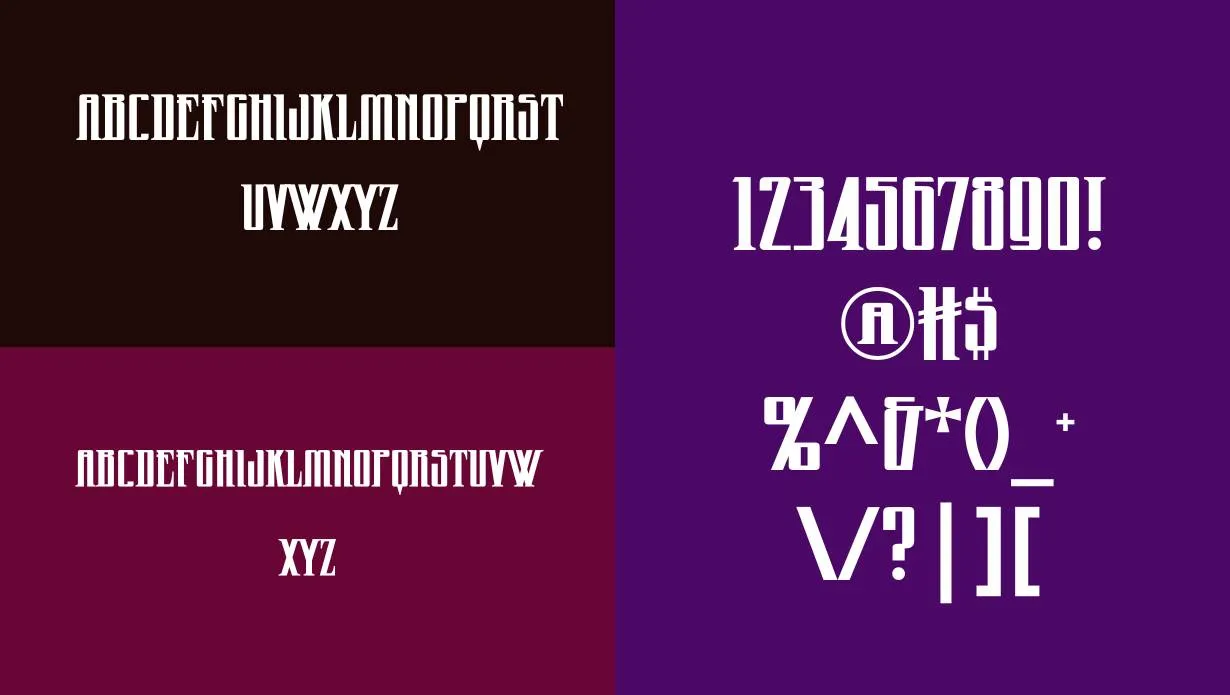
Wicked Queen Font exudes a dark and Gothic vibe, perfect for projects needing a mysterious and edgy appearance, like Halloween posters or branding for alternative bands.
| Style | Gothic |
The font includes uppercase and lowercase letters, numerals, punctuation, and a variety of special characters, adding a touch of the macabre to your designs. Whether you’re using Canva or Adobe, Wicked Queen Font gives your text a haunting and enigmatic quality.